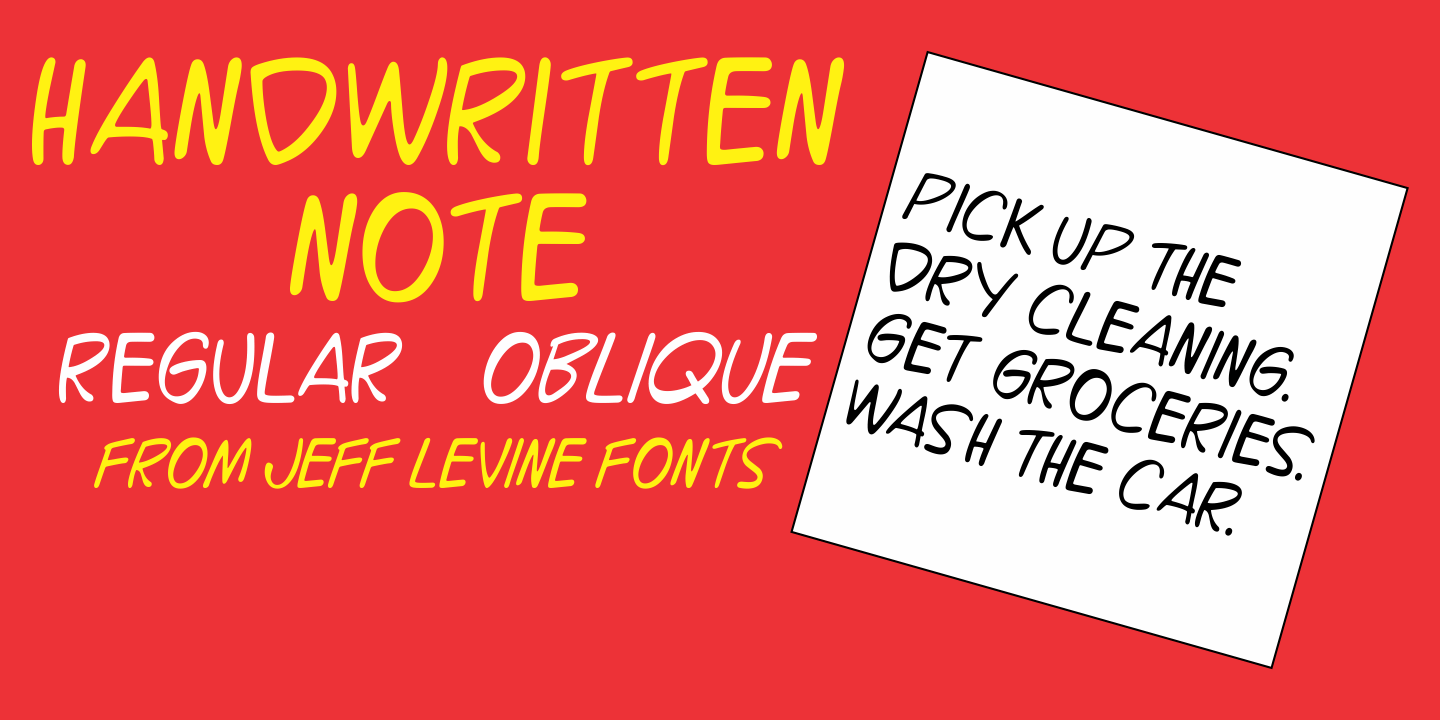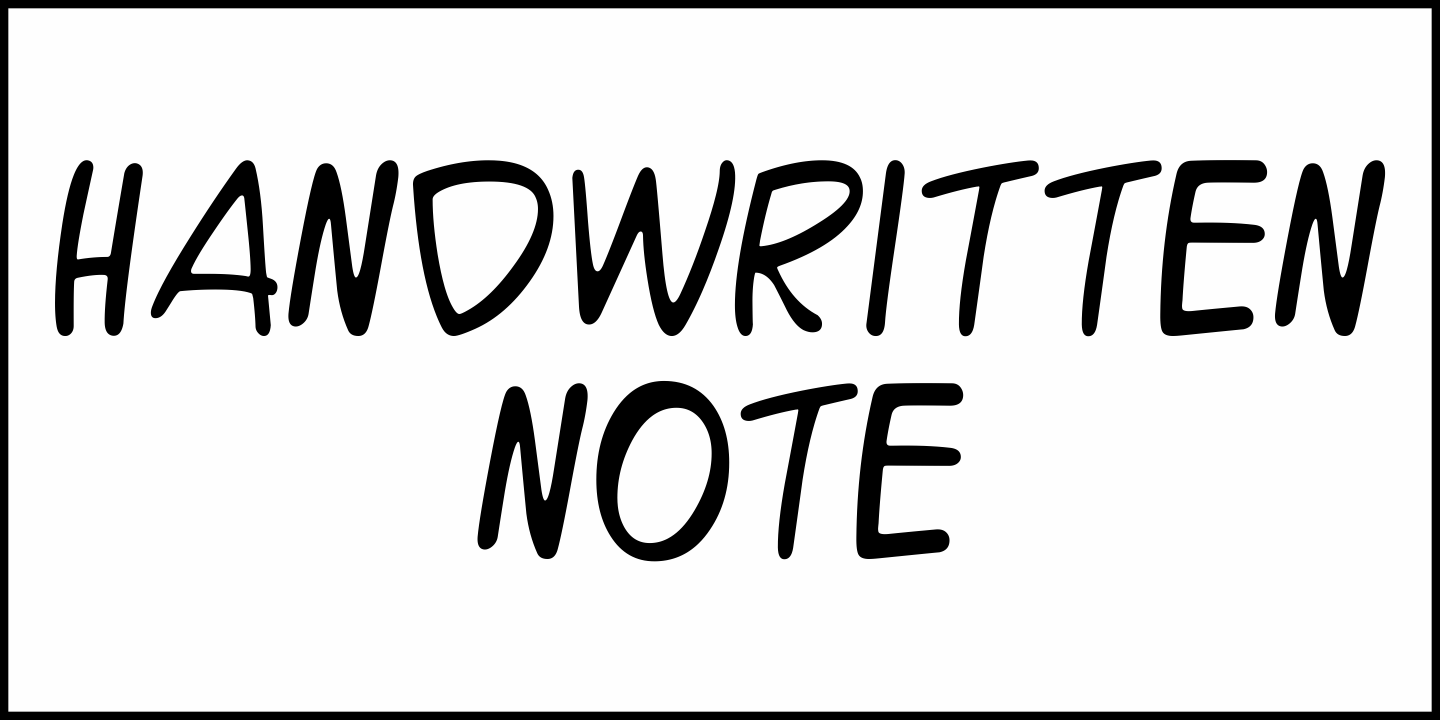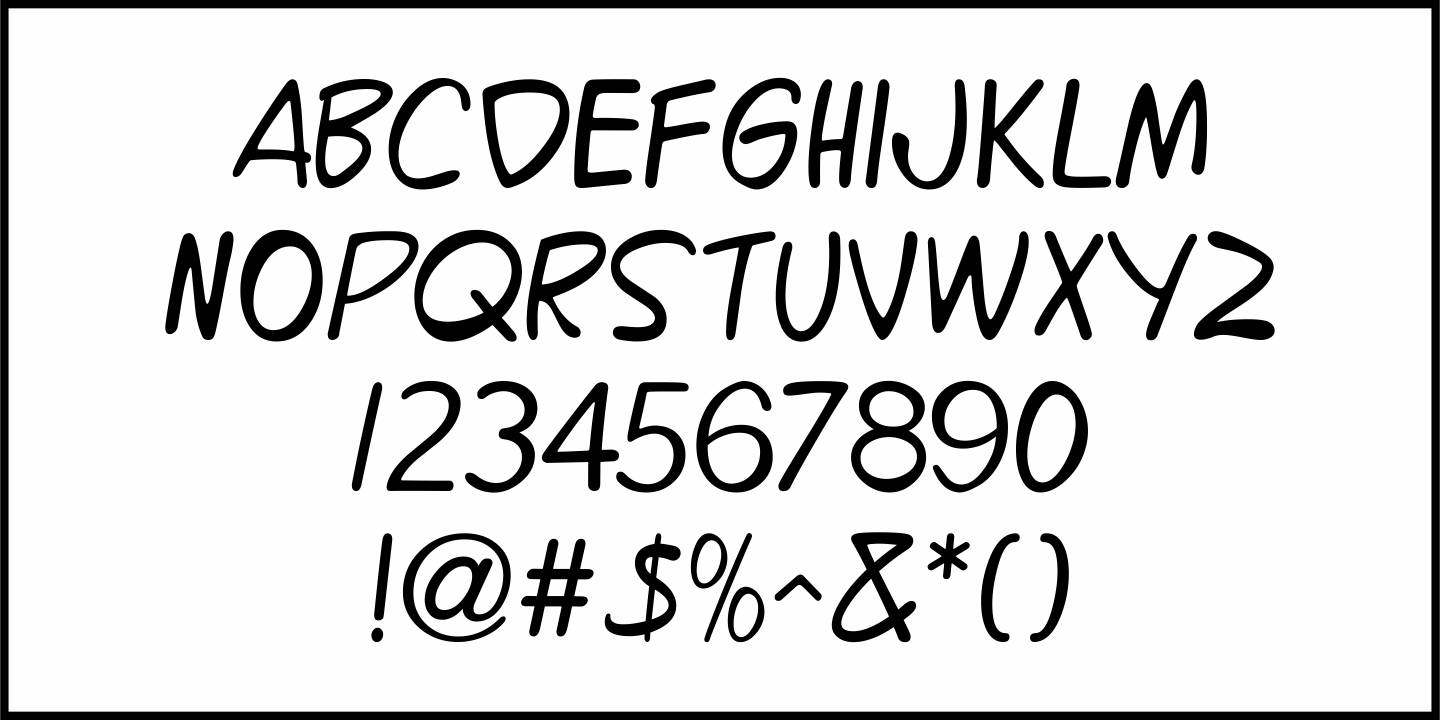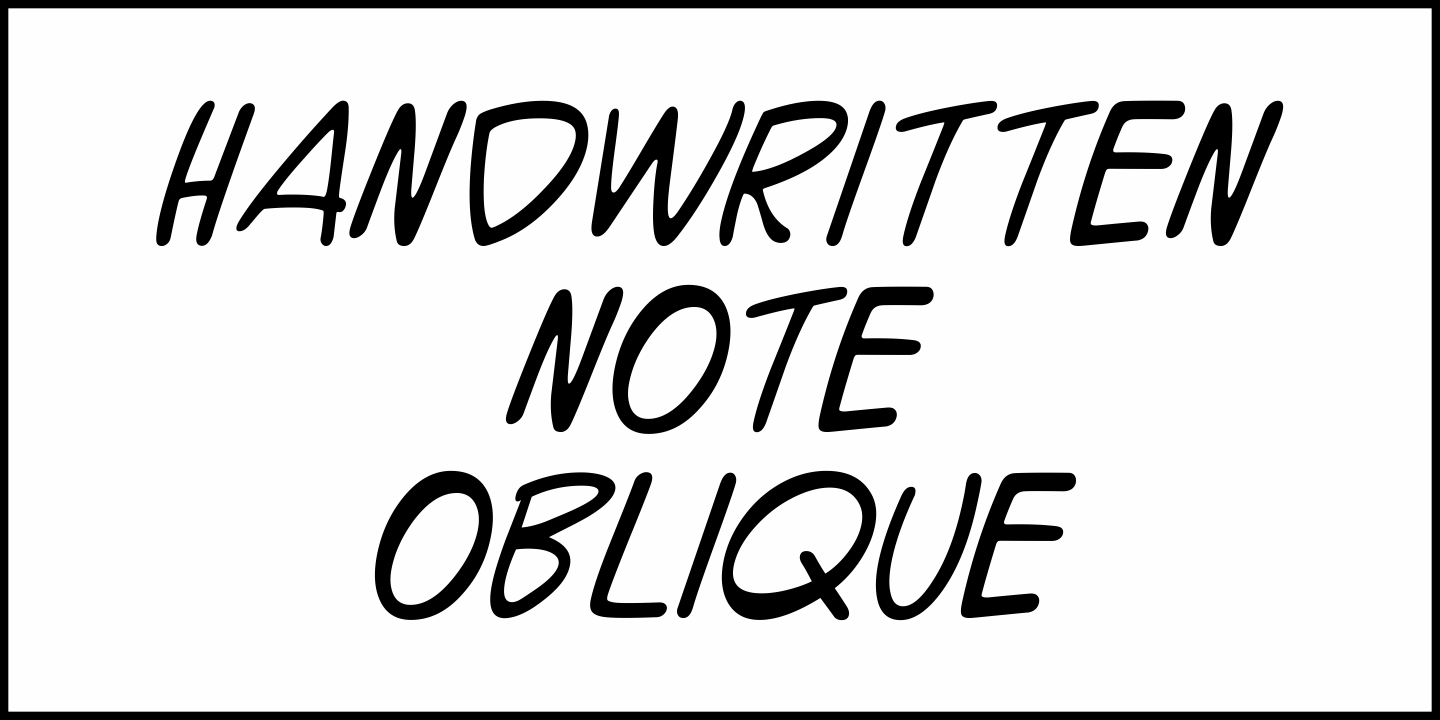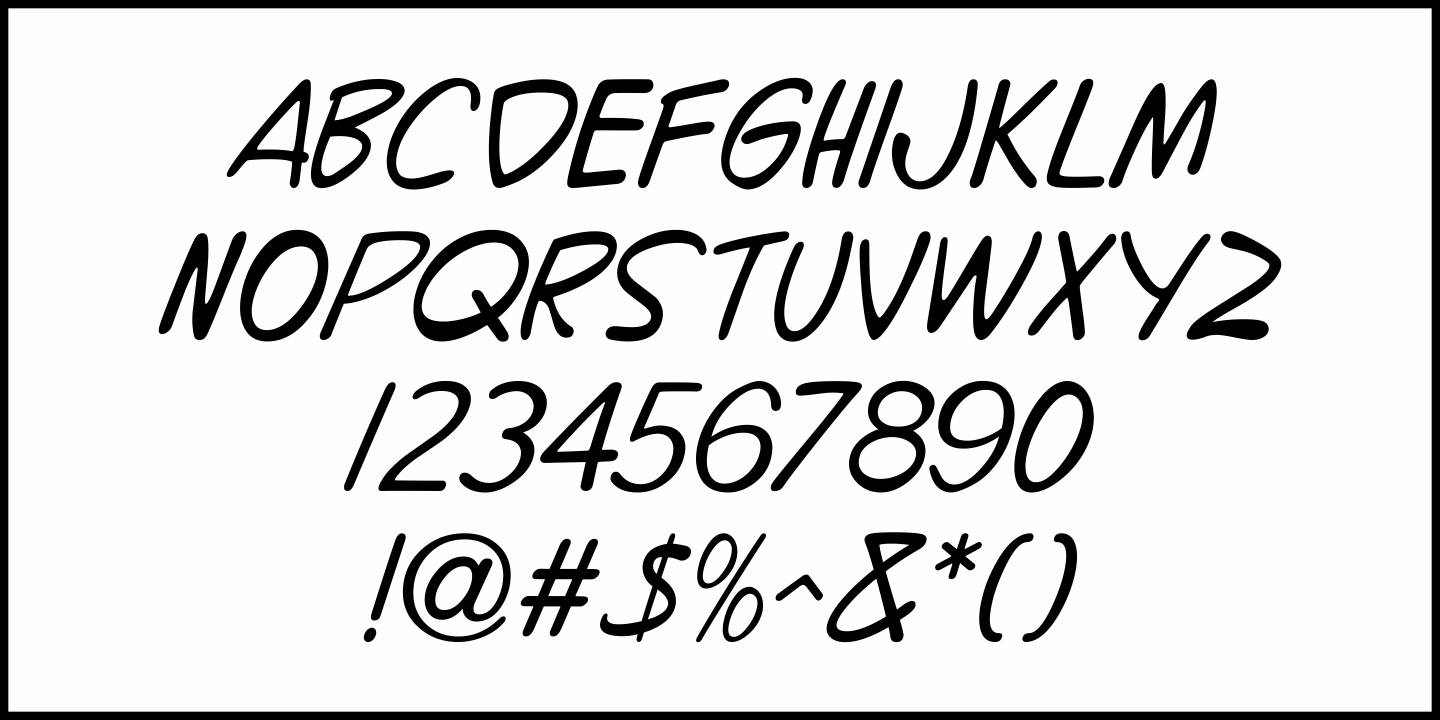
Handwritten Note
The poster for the 1961 James Cagney Comedy 'One-Two-Three” features loose, casual hand lettering done with pen and ink.
Starting with an auto-trace in order to have an isolated version of the black letters separated from the red poster background, the tracing kept the basic forms intact, but with limited accuracy.
Cleaning up and digitally reshaping the letters manually to form a more correct version [closer to the original movie poster], additional figures, foreign characters, accents and punctuation were drawn from scratch.
This is now available as Handwritten Note JNL in both regular and oblique versions.